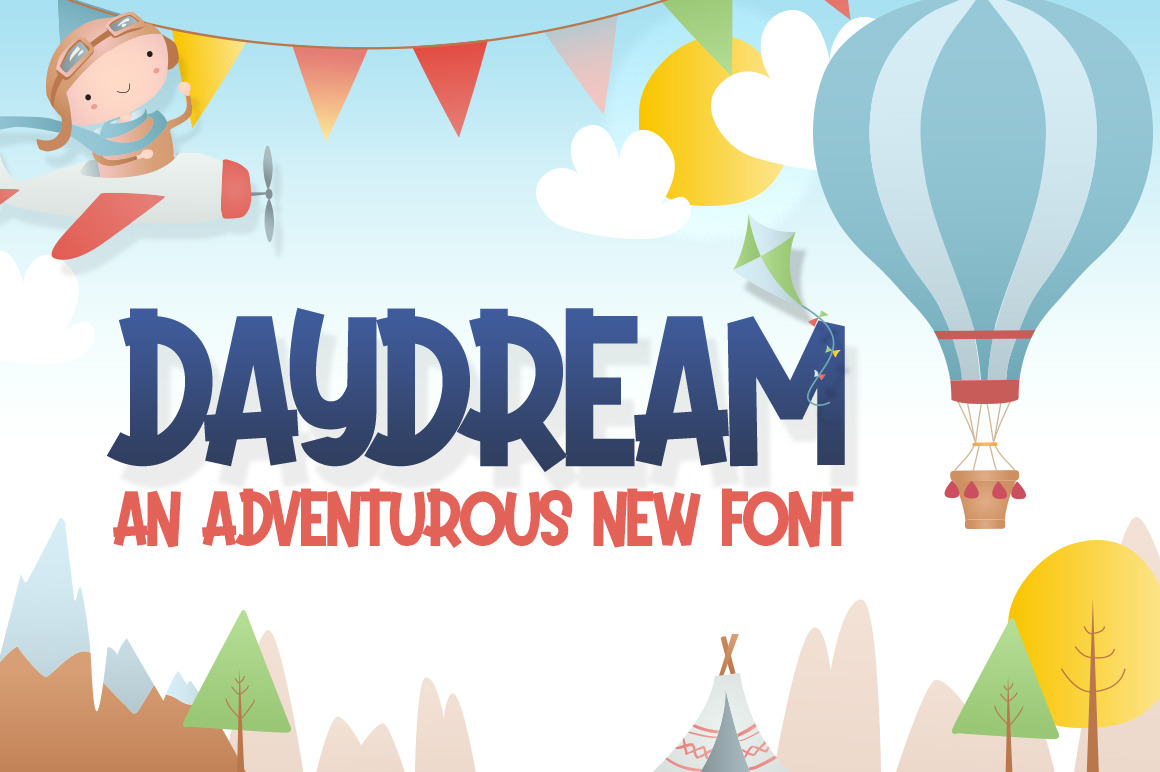
Daydream Kids Font
Daydream is a wonderful new font that can take you on an adventure! Perfect for any little explorers in your life and works well with others for use in quotes! No need to dream of all the things you could do with this beauty, download it today and make it a reality!